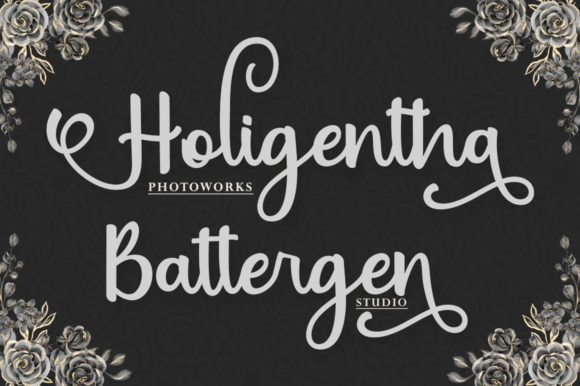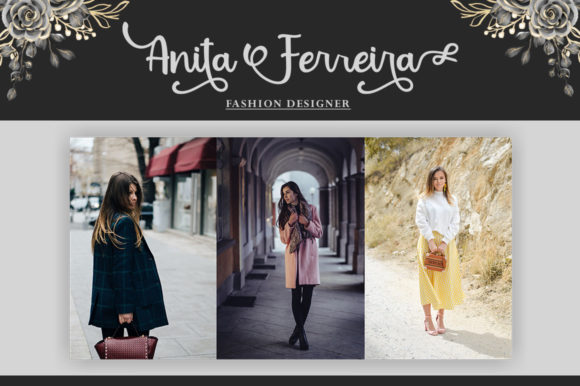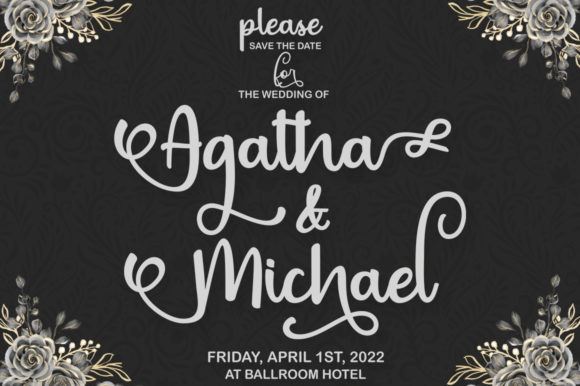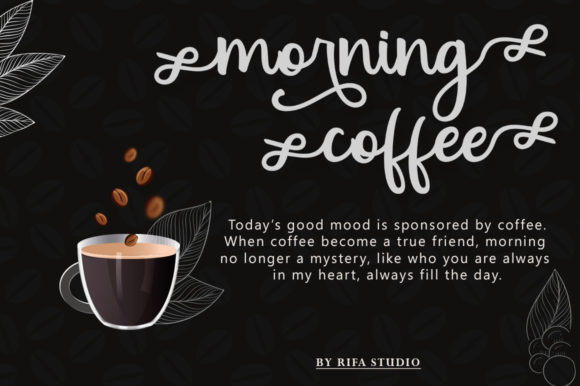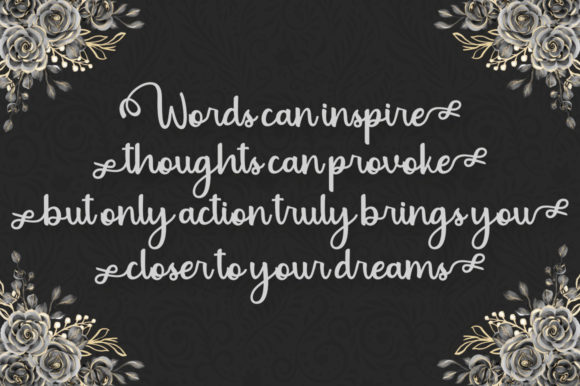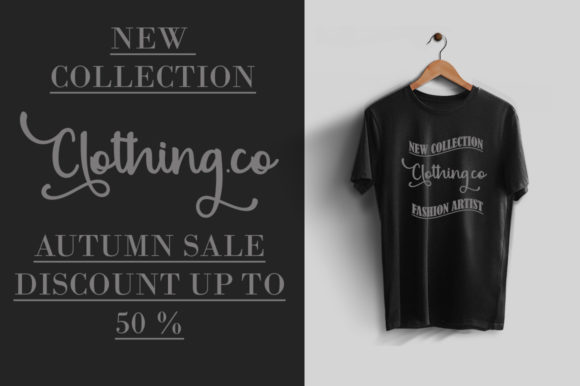
Introducing Arteliria Script Font: Elevate Your Designs with Elegance
In the world of typography, a font can make or break a design. For designers and crafters looking for that perfect touch of elegance and sophistication, Arteliria Script Font is an exceptional choice. This beautiful, well-balanced, and vintage-styled script font is designed to add a touch of luxury to any project, making it ideal for fashion branding, editorial designs, and more.
The Beauty of Arteliria Script
Arteliria Script is characterized by its smooth curves and fluid lines, which give it a classic yet timeless feel. The font’s design is carefully crafted to ensure that it is not only aesthetically pleasing but also highly legible, making it perfect for a wide range of applications. Whether you’re working on a fashion magazine, a luxury brand’s marketing materials, or a high-end product catalog, Arteliria Script is sure to impress.
One of the standout features of Arteliria Script is its PUA (Private Use Area) encoding. This means that users can easily access all the glyphs and swashes without the need for complicated software or technical expertise. With PUA encoding, you can unlock the full potential of the font, experimenting with different styles and combinations to create truly unique designs.
Perfect for Fashion Branding and Editorial Designs
Fashion branding and editorial designs require a font that exudes elegance, sophistication, and style. Arteliria Script meets these requirements and more. Its vintage feel and smooth curves evoke a sense of luxury and refinement, making it perfect for:
- Fashion magazines and editorials
- Luxury brand marketing materials
- High-end product catalogs
- Wedding and event invitations
- Packaging design for premium products
Why Choose Arteliria Script Font?
With so many fonts available, why choose Arteliria Script? Here are just a few reasons:
- Unique and distinctive: Arteliria Script has a unique and distinctive style that sets it apart from other script fonts.
- Elegant and sophisticated: The font’s smooth curves and fluid lines give it an elegant and sophisticated feel.
- Highly legible: Despite its elegant style, Arteliria Script is highly legible, making it perfect for body text and headlines.
- PUA encoded: Easy access to all glyphs and swashes means you can experiment with different styles and combinations.
Tips for Using Arteliria Script Font
To get the most out of Arteliria Script, here are a few tips:
- Use it as a headline font: Arteliria Script is perfect for headlines and titles, where its elegant style can really shine.
- Experiment with swashes: With PUA encoding, you can easily access all the swashes and glyphs to add a touch of personality to your designs.
- Pair it with a sans-serif font: For body text, pair Arteliria Script with a clean sans-serif font to create a striking contrast.
Arteliria Script Font is a beautiful, elegant, and sophisticated script font that is perfect for designers and crafters looking to add a touch of luxury to their projects. With its smooth curves, fluid lines, and PUA encoding, it’s an excellent choice for fashion branding, editorial designs, and more. Whether you’re working on a high-end fashion magazine or a luxury brand’s marketing materials, Arteliria Script is sure to impress.